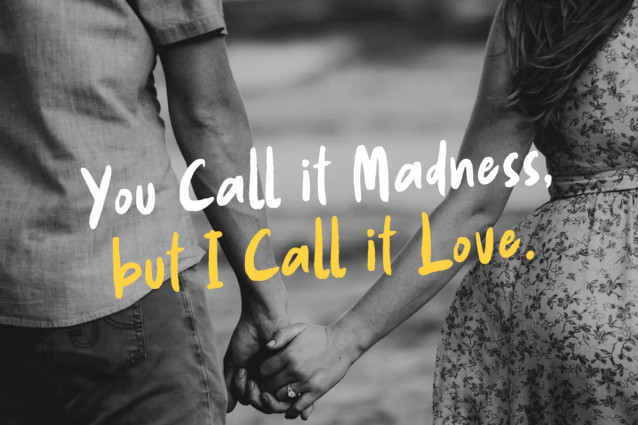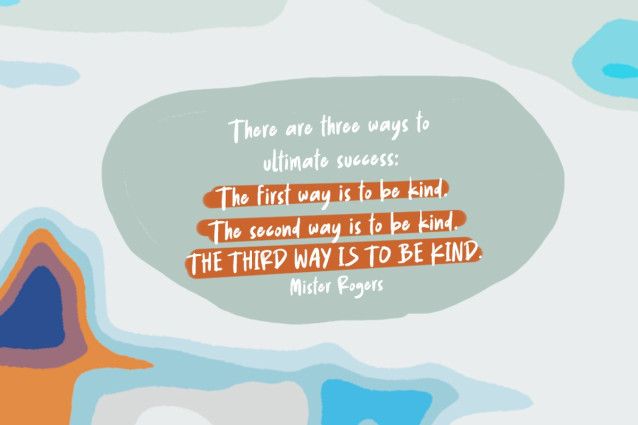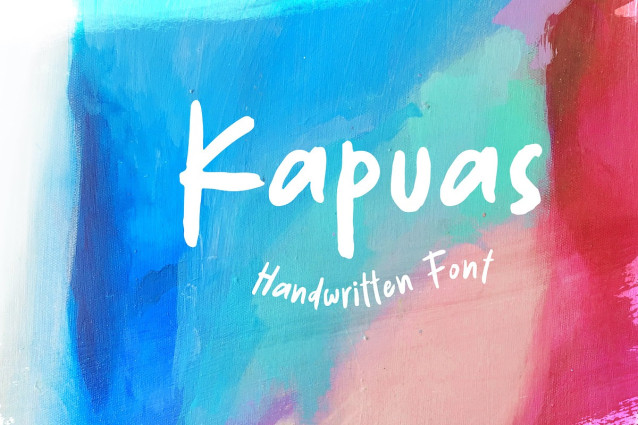
Kapuas Hand Font
Kapuas Hand Font – Handwritten Font, a new font with the style of the fun and natural. Which is you can create a cute and fresh design like writing by hand.
Kapuas is very suitable for logo design, birthday cards, cover books, magazines, flyers, quotes, packaging and of course much more.